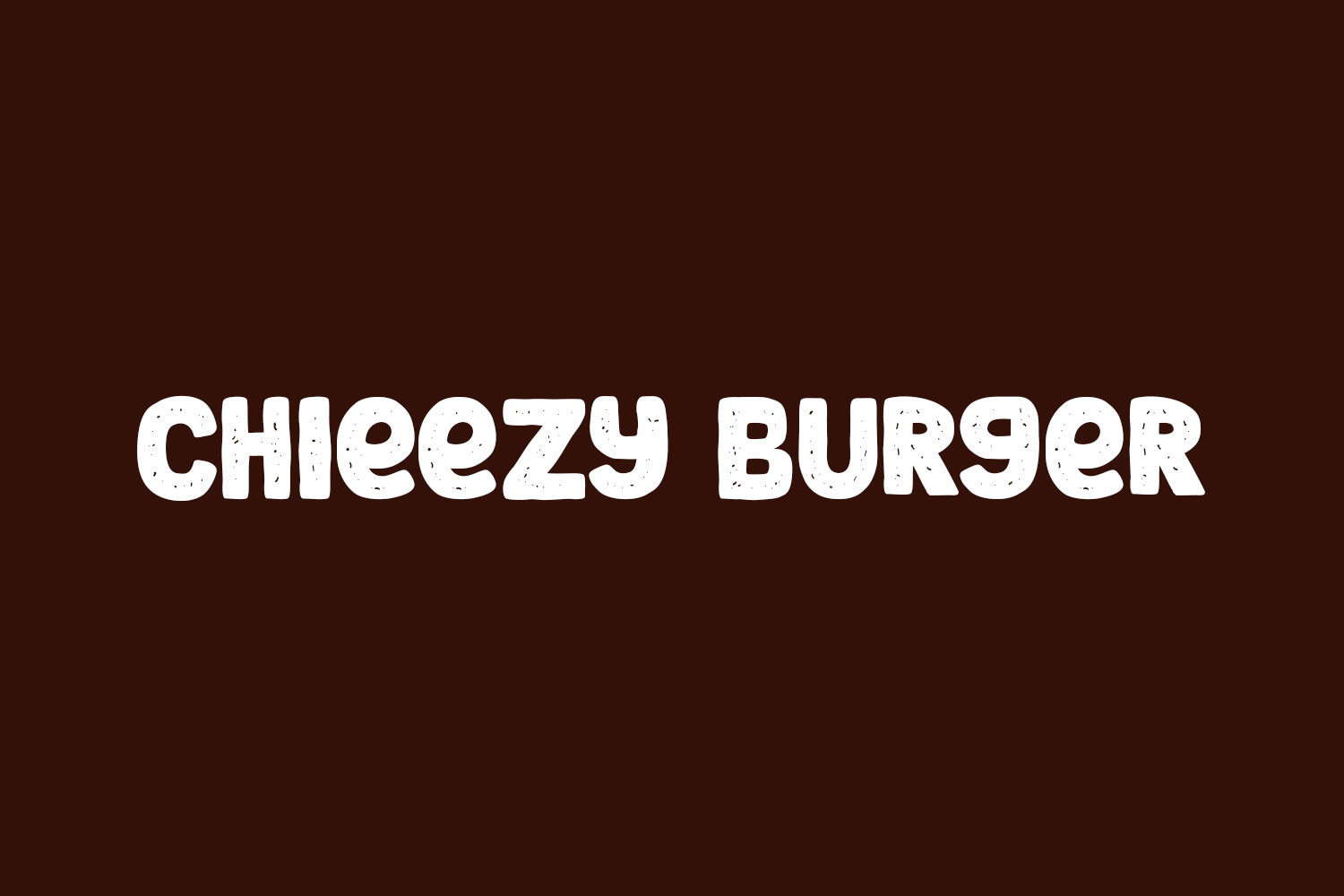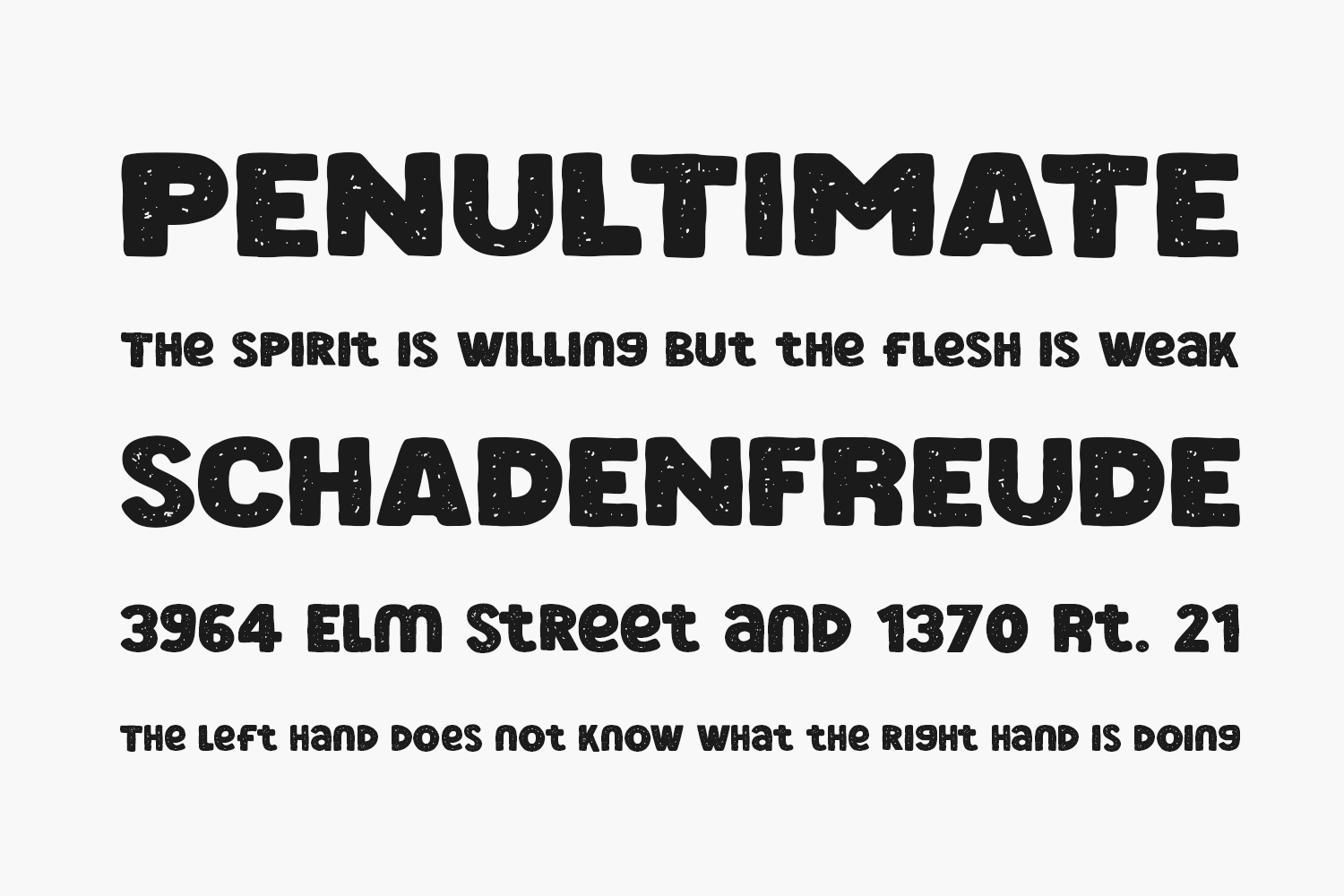
Meet Chieezy Burger Free Font – a playful and highly legible display font exuding delightful friendliness. Whether applied to crafts, digital design, presentations, or crafting greeting cards, this font is poised to be your top choice for any occasion. Embrace the charm of Chieezy Burger as your go-to font for all your creative needs. Chieezy Burger Free Font was designed by Arterfak Project and is free for personal use only. Please purchase the full version for commercial use.